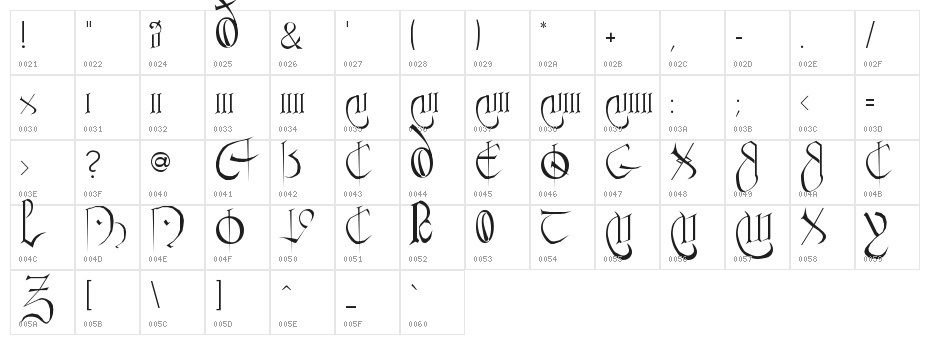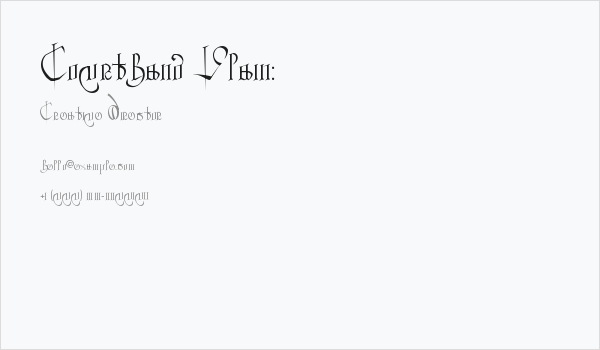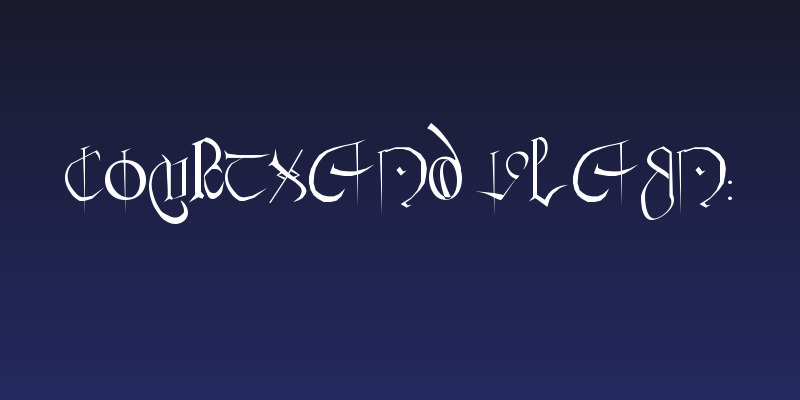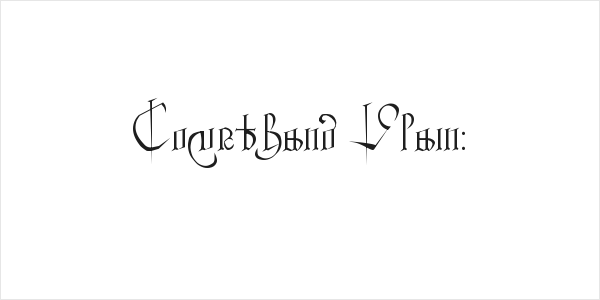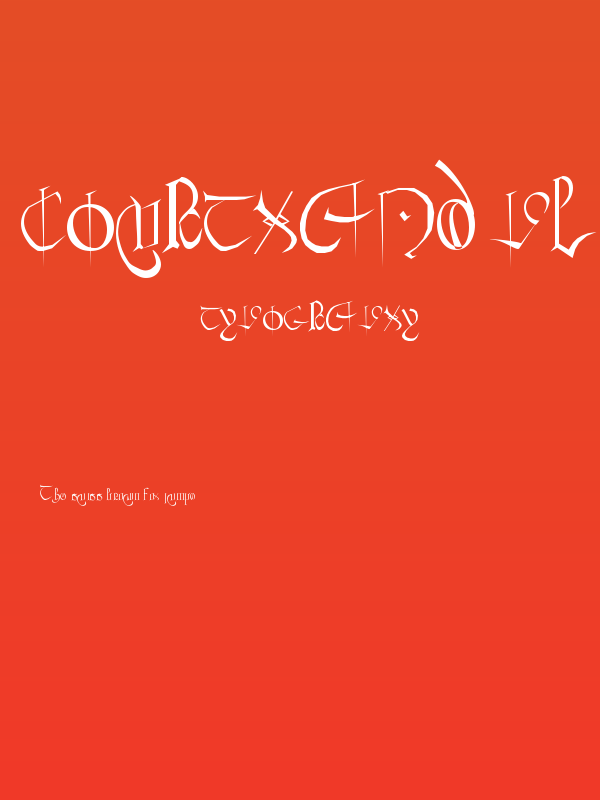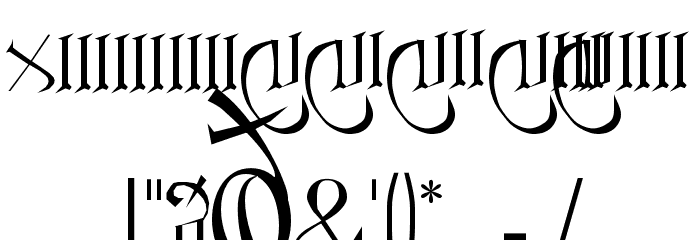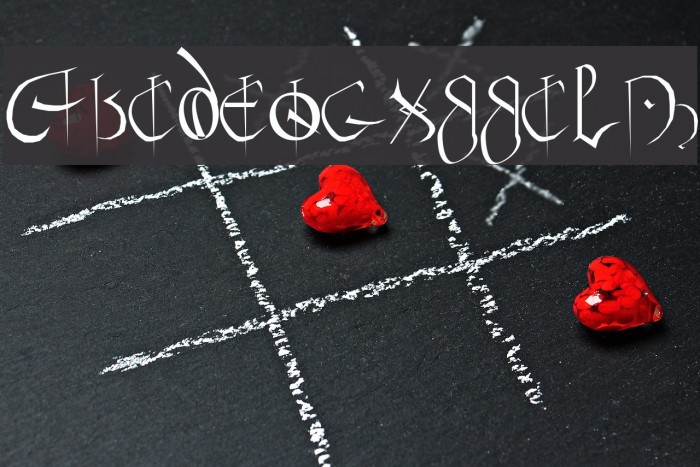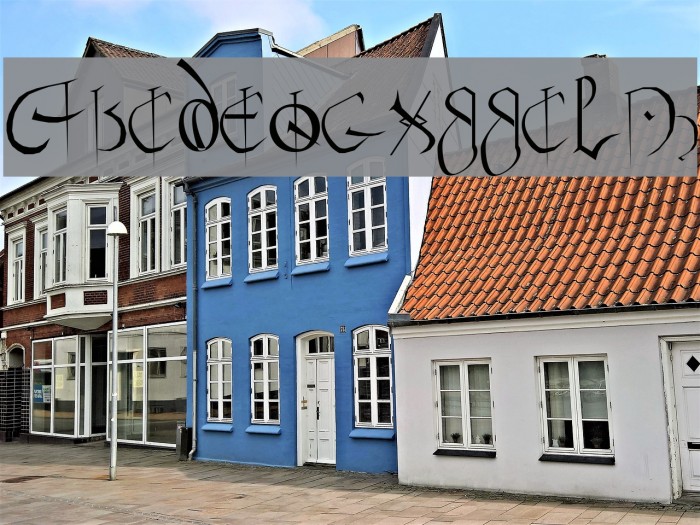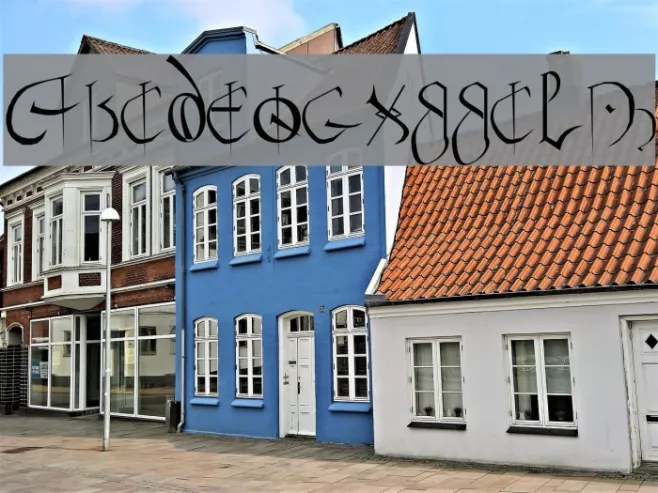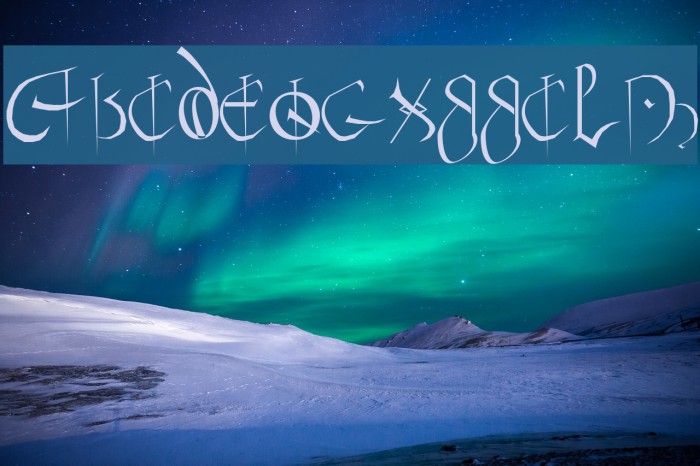
Courthand Plain: Font
Courthand Plain: Description
This font exhibits a distinctive and intricate style reminiscent of historical calligraphy. Each character is crafted with elaborate strokes and flourishes, giving it a regal and formal appearance. The uppercase letters are particularly ornate, featuring sharp angles and curves that create a sense of movement and elegance. The lowercase letters maintain a consistent style, though they are slightly more subdued, allowing for readability while still retaining the decorative elements. The numerals and special characters follow the same ornate design, ensuring a cohesive look across all glyphs. This font's unique style makes it ideal for projects that require a touch of sophistication and historical flair.
| Use Case | Logos, Invitations, Certificates |
| Proposed Projects | Ideal for wedding invitations, certificates, historical documents, and branding that requires a classic touch. |